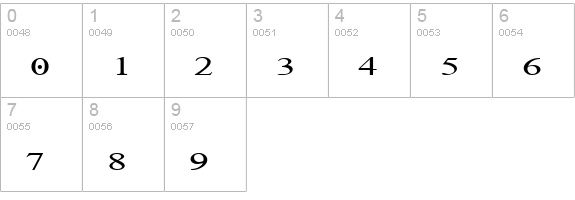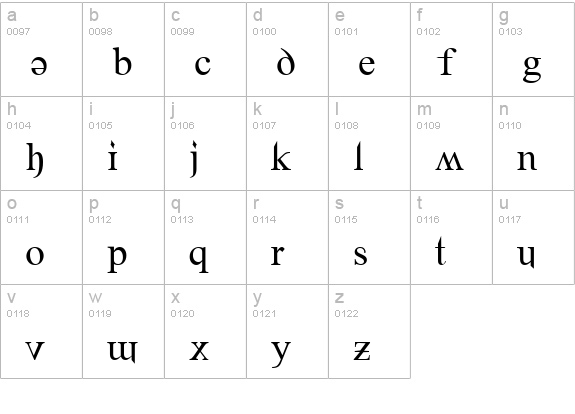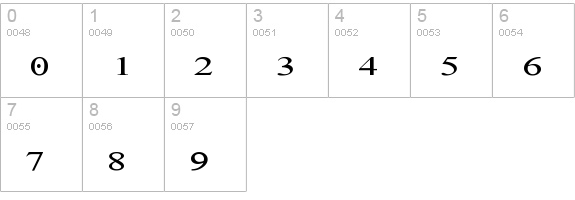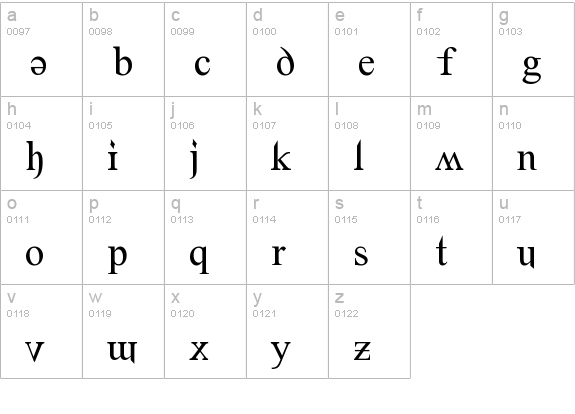
Denial2Regular Font Details
Denial2Regular font is a versatile and modern typeface that exudes a sense of sophistication and elegance. Its clean lines and balanced proportions make it perfect for a wide range of design projects, from branding to print materials. With a timeless appeal and a touch of minimalism, Denial2Regular font is sure to make your text stand out. Best of all, Denial2Regular font is available for free download at FontsMarket.com. So whether you're a graphic designer looking to add a new font to your collection or a business owner in need of a fresh look for your marketing materials, this font is a great choice. Download Denial2Regular font today and elevate your designs with its sleek and contemporary style.